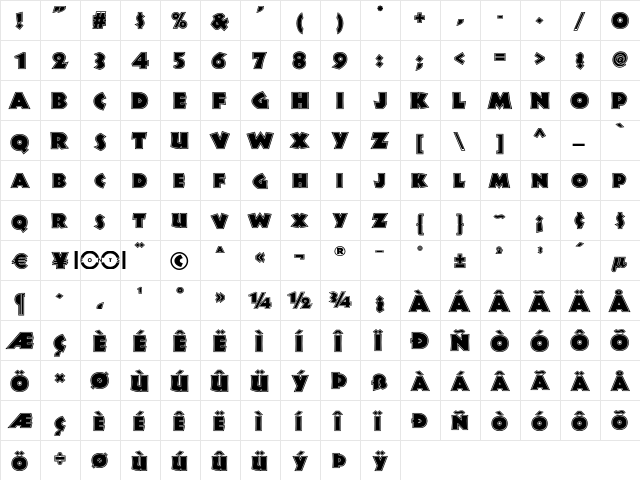
Jungle Fever Inline NF Regular
Design Context for Jungle Fever Inline NF Typeface
Jungle Fever Inline NF is built around its visual character rather than neutral utility — its distinctive forms are designed to make an impression at display sizes.
Font Pairing: Pair with a clean neutral sans-serif for body copy to let Jungle Fever Inline NF's character lead without overwhelming the composition.
Pro Tip: Use Jungle Fever Inline NF exclusively at display sizes — it was designed to be seen, not read at length. Let a neutral companion handle body copy.